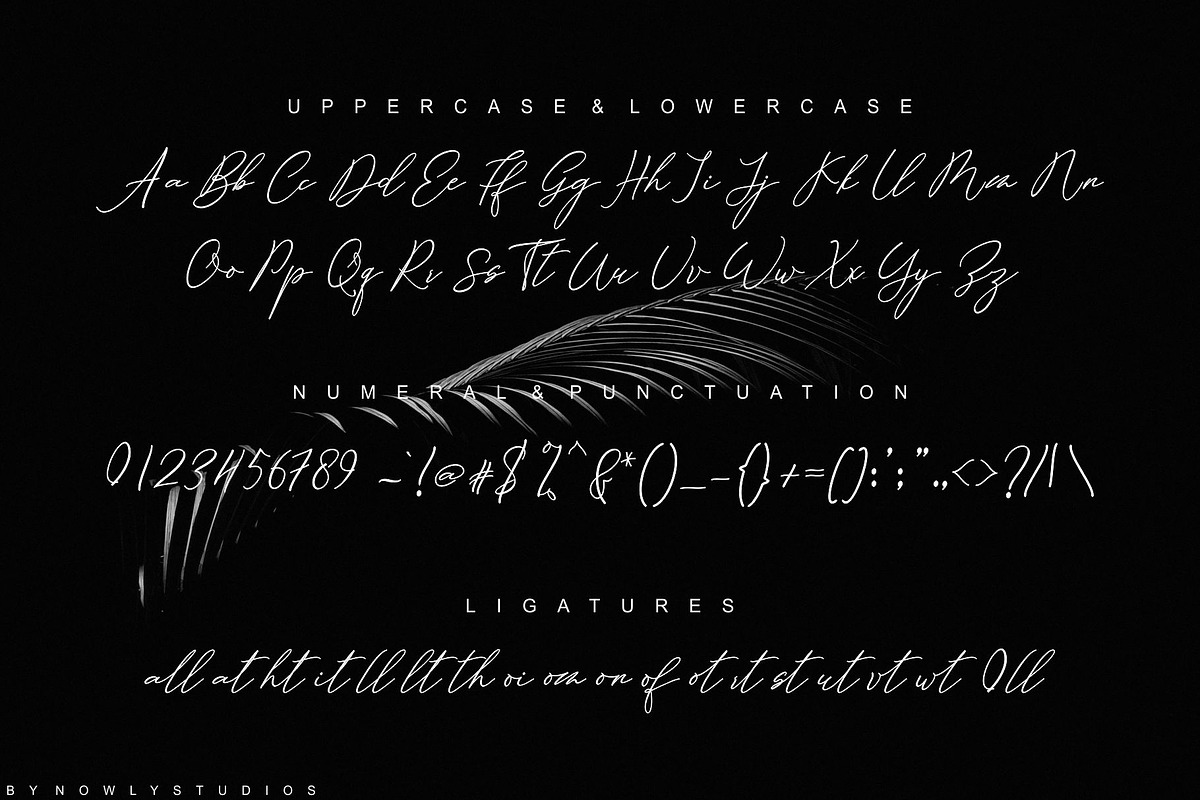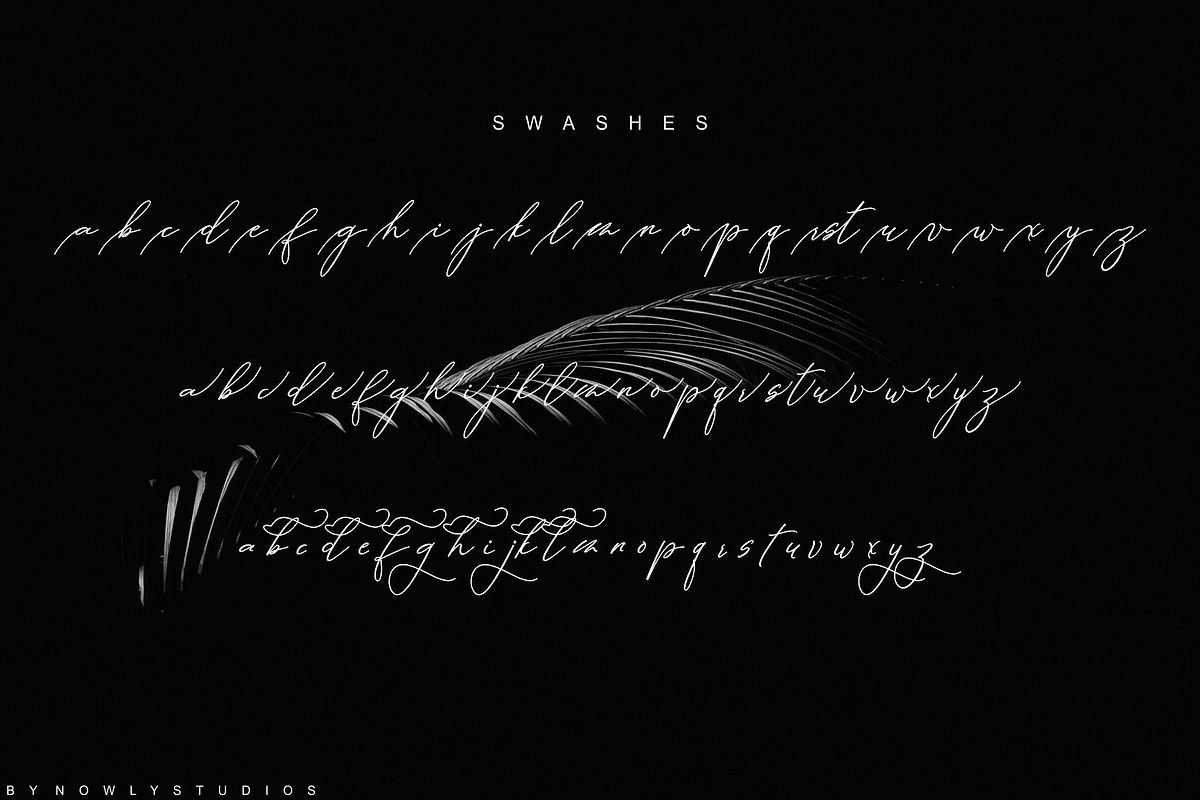
Bucking Hamshire Script
Bucking Hamshire Script contains opentype features such as stylistic alternates, swashes & ligatures. Perfect for logo, printed quotes, badges, insignia, packaging, headline, poster, t-shirt / apparel, greeting card, and wedding invitation, & etc